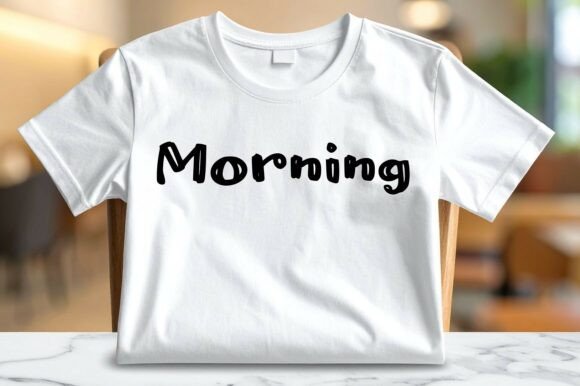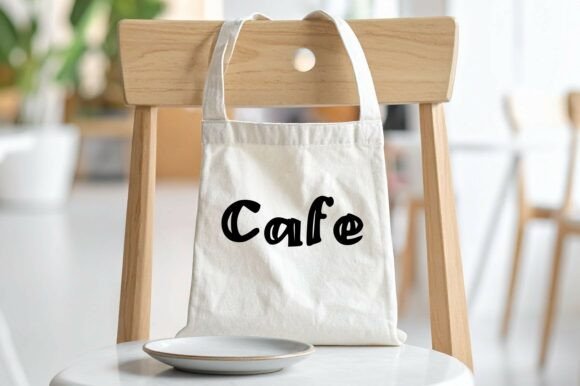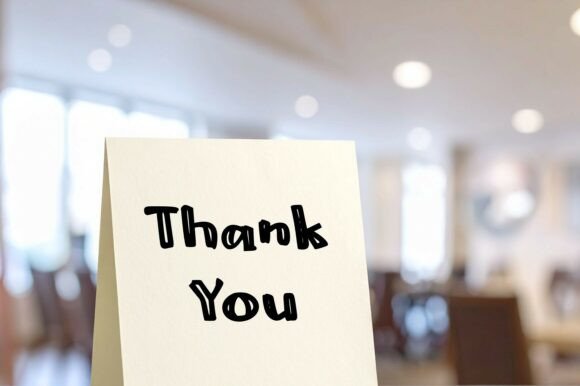
Introduction to Centong Font
Introducing Centong – a delightful display font boasting a captivating charm with its round, agreeable attributes.
Radiating warmth, friendliness, and fun, Centong is beautifully suited for designs aiming for an appealing, cheerful, and crisp look With its evenly robust and sleek letters void of any sharp corners, Centong brings about a soft, jolly aesthetic appeal.
Key Features of Centong Font
Why Choose Centong Font?